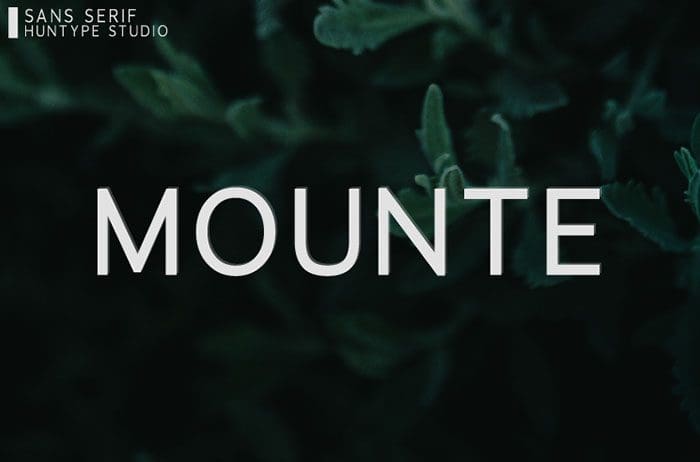
Mounte is an elegant sans serif font with an undeniably clean feel. With its neat and beautiful arrangement of letters, this typeface will look outstanding in both formal and non-formal designs. Thanks to Mas Anis for sharing this font! Take a look at this portfolio for more of his stunning fonts.
Designed By : Mas Anis